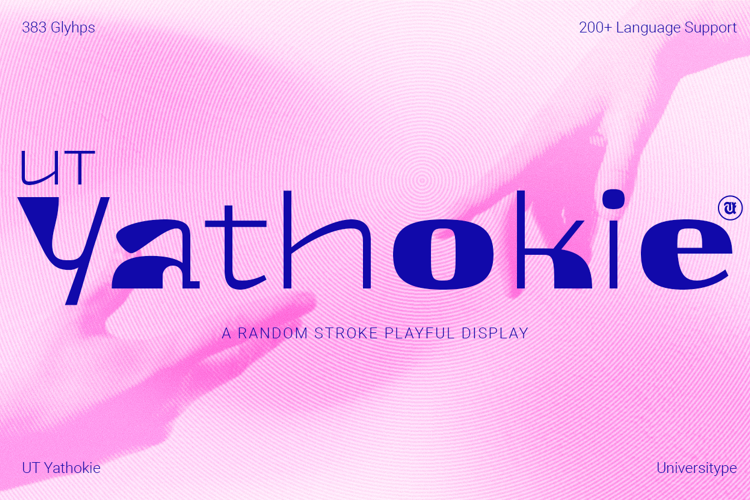
UT Yathokie Font
Inspiration Behind the Design
UT Yathokie began as a spark—literally. The initial idea came from the head of a matchstick: that soft, rounded tip with just enough tension and potential to ignite something bigger. That shape—simple yet loaded with energy—became the seed of this entire typeface.
From there, the design unfolded through playful exploration. The teardrop form from the match head became a motif, echoed across letter terminals, curves, and cuts. It’s present in subtle dips in the lowercase “a,” in the stretched leg of the “k,” and in the looping, unexpected turns of characters like “g” or “y.” The match-head influence morphed into a visual language of its own—sometimes obvious, sometimes buried in the rhythm of the type.
But it didn’t stop with form. Yathokie also channels the vibe of handmade lettering from underground zines, the energy of experimental typography in music culture, and the chaos of trying to design something when you don’t overthink it. It embraces randomness—not the kind that feels sloppy, but the kind that feels alive. That’s why some strokes feel heavy, others thin. Some letters stretch tall, while others keep compact. It’s a dance between deliberate design and letting the font misbehave just enough.
It’s inspired by contradiction: geometric, yet off-kilter. Friendly, but intense. Structured, but never rigid. UT Yathokie is what happens when you light a match and let the design take the lead.